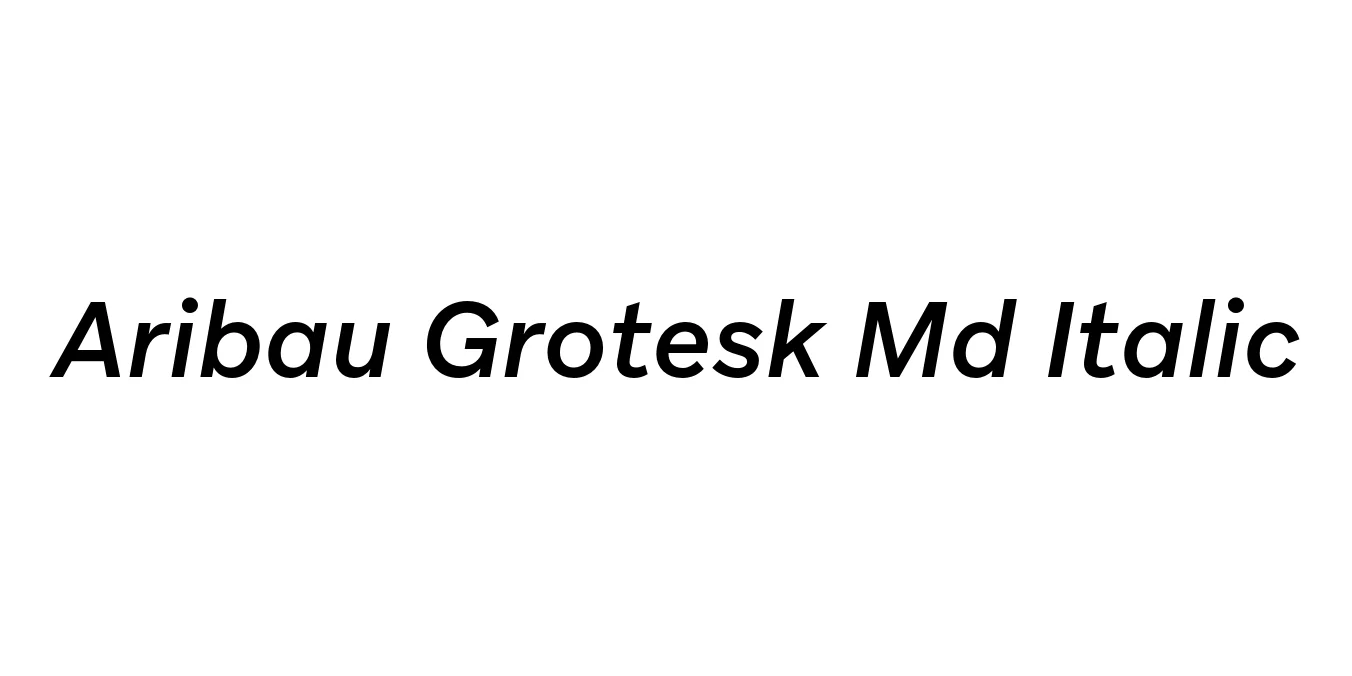
Aribau Grotesk Md Italic
Designed by Eduardo Manso
Aribau Grotesk Md Italic is a contemporary neo-grotesque typeface designed by Eduardo Manso and released through his Barcelona-based studio, Emtype Foundry. The font is built on a foundation of geometric precision but incorporates subtle humanistic touches that prevent it from feeling too rigid or sterile. The Medium Italic weight offers a perfectly balanced slant, providing a sophisticated sense of movement and emphasis without sacrificing the structural legibility that the family is known for.
Drawing inspiration from early 20th-century European grotesques, Aribau Grotesk features a high x-height and open apertures, making it exceptionally functional for both high-resolution digital interfaces and complex print layouts. Its neutral yet distinct personality allows it to blend seamlessly into modern branding environments. Whether used for editorial design, corporate identities, or mobile applications, this font remains a versatile tool for designers seeking a clean, modern aesthetic with a professional edge.
Aribau Grotesk Md Italic Best Uses
Perfect for user interface elements and emphasized body text needing a modern look.
Excellent for corporate identity systems and logos requiring a professional, reliable tone.
Ideal for magazines and academic books as an emphasis font within dense body copy.
Highly effective in marketing slogans and digital advertisements for its clarity and style.